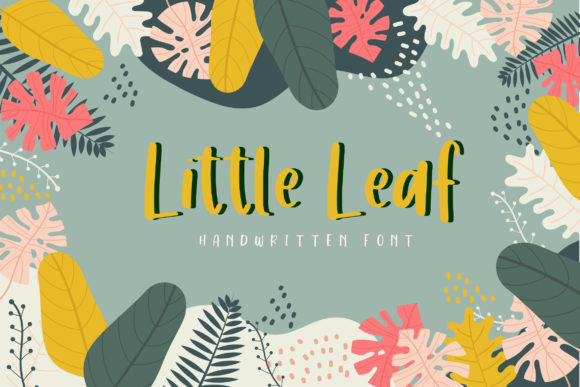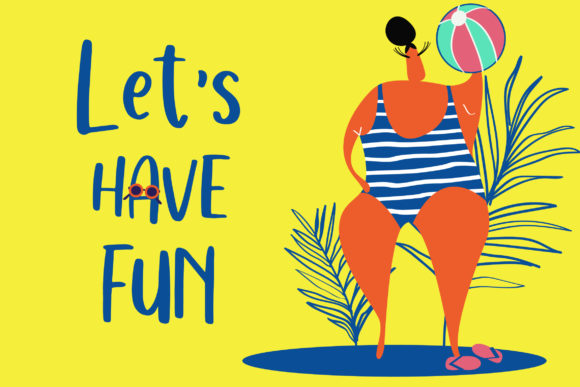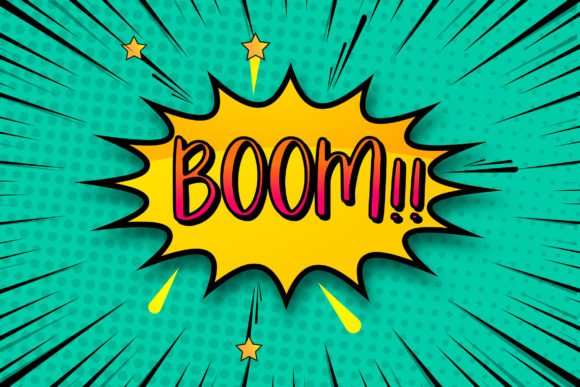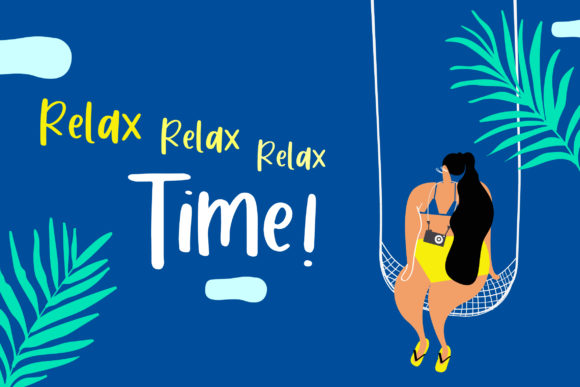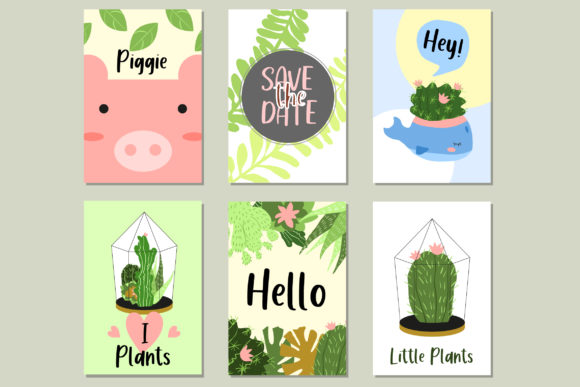
Little Leaf Font
About Little Leaf Font
Little Leaf is a spunky and bold font that adds character to any design. Get motivated by its playful look & feel!